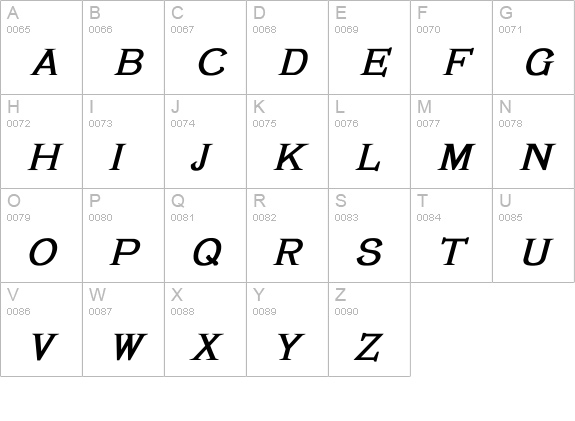
Verena Bold Italic Font Details
Verena Bold Italic is a strong, high-contrast, italic variant in the Verena typeface family \xE2\x80\x94 well suited to headlines, attention-grabbing titles, and strong calls-to-action.
Verena Bold Italic font is a stunning typeface that exudes confidence and elegance. With its bold and slanted letterforms, it commands attention and adds a touch of sophistication to any design project. This font is perfect for creating eye-catching headlines, striking logos, and captivating advertisements. Its unique combination of boldness and italics gives it a distinctive and modern look that stands out from the crowd. Verena Bold Italic font is not only visually appealing but also highly versatile. It works well in both print and digital mediums, making it an ideal choice for a wide range of design applications. What makes Verena Bold Italic font even more appealing is that it is available for free download at FontsMarket.com. This means that you can easily access and use this remarkable font in your projects without any financial constraints. Whether you are a professional designer or someone looking to add a touch of style to your personal projects, Verena Bold Italic font is the perfect choice. Its boldness, elegance, and availability make it a valuable asset for anyone seeking to make a lasting impression.